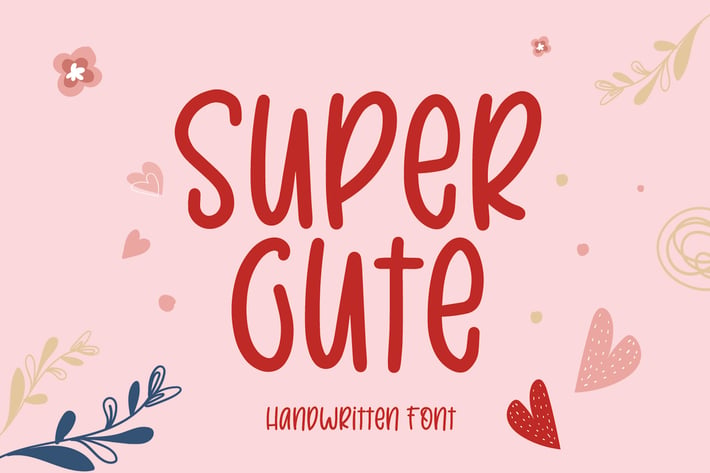
Super Cute - Quirky Handwritten Font
Super Cute a quirky handwritten font. Made by handwriting instantly brings out the natural characteristics of your project. This font is perfect for websites, svg designs, home decor, branding, blogs, logos, invitations and more.\
Uppercase & lowercase
Numbers and punctuation